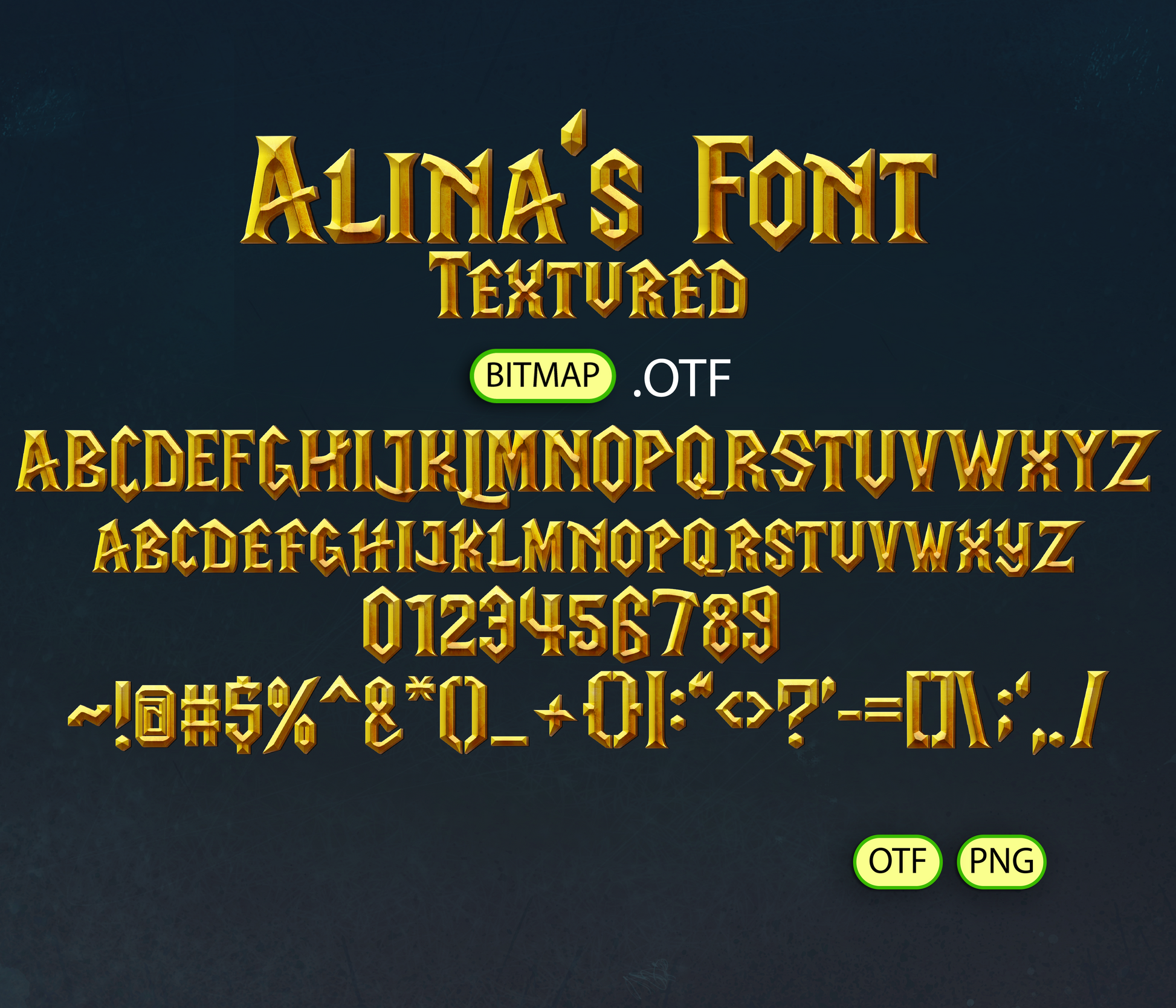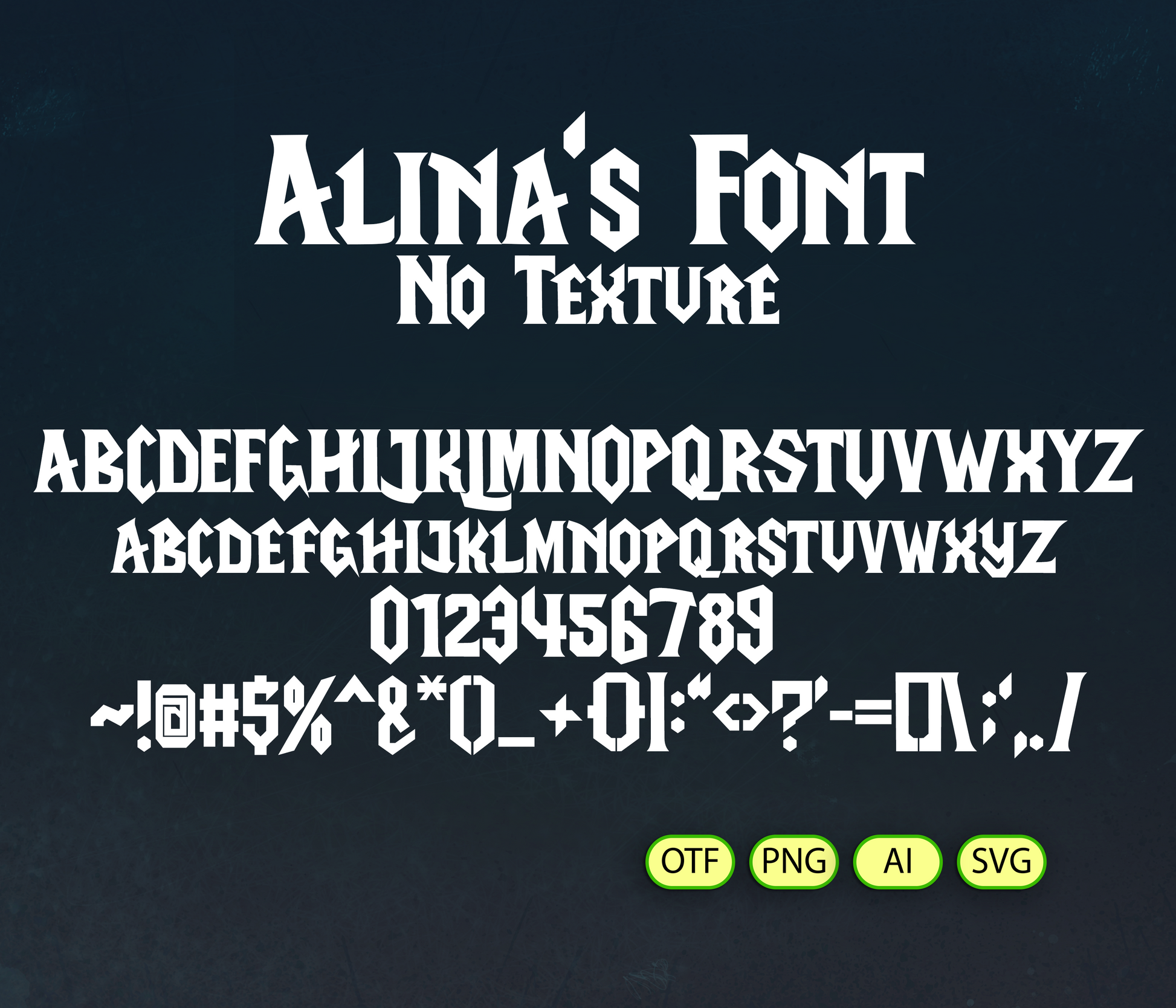
Epic Realms Font Textured
Epic Realms Textured Font: Exploring a Vast Fantasy Universe
Embark on a journey into a vast and intricate universe inspired by legendary MMORPGs, celebrated for rich lore, expansive worlds, and complex character development. Our Epic Realms font is a tribute to iconic fantasy gaming, capturing the essence of mythical narratives and diverse cultures within imaginary lands. Each character in this font is designed to echo medieval and mystical themes, making it perfect for projects that seek to evoke the grandeur and adventure of legendary gaming worlds.
What Font is Epic Realms Font?
Envision a typeface that encapsulates medieval fantasy and diverse cultures present in epic games. Our font is crafted to reflect ornate aesthetics, with a focus on strong, stylized letterforms that resonate with lore and artistry. It includes an extensive character set, featuring alphabets, numbers, and special symbols, providing a versatile toolkit for a wide range of design projects, from gaming content to themed merchandise.
What Can You Do With Epic Realms Font?
The Epic Realms font is versatile and ideal for various creative and immersive applications:
- Gaming and App Design: Enhance interfaces and content for fantasy-themed games and applications.
- Themed Event Invitations: Create engaging invitations for gaming parties, events, or conventions.
- Merchandise Design: Perfect for designing t-shirts, posters, and other merchandise for fantasy fans.
- Digital Content and Social Media: Use the font to add an epic touch to websites, blogs, and social media posts.
- Promotional Materials: Incorporate the font into marketing campaigns for events or products related to gaming and fantasy.
- Interior Decor: Use for wall art, decals, or signage in gaming rooms or spaces with a fantasy theme.
- Editorial Design: Apply it to magazines, brochures, or publications focused on gaming, fantasy, or entertainment.
- Custom Stationery: Design personalized stationery with a fantasy-inspired flair.
- Creative Art Projects: Ideal for crafting, scrapbooking, and artistic projects inspired by fantasy lore and aesthetics.
- Book and Magazine Design: Use in publications focusing on gaming, fantasy literature, or fanfiction.
- Textured and FREE Non-Textured Variants: Each font is available in both a style that reflects rich fantasy textures and a clean, non-textured version for diverse design needs.
- Comprehensive Character Set: Offers a wide range of characters for complete design versatility.
The Epic Realms font is more than just a typeface; it's a homage to the immersive and expansive world of iconic fantasy gaming.